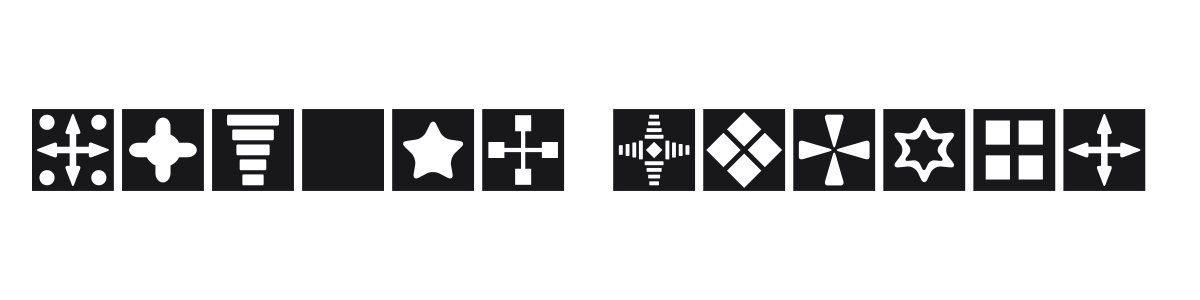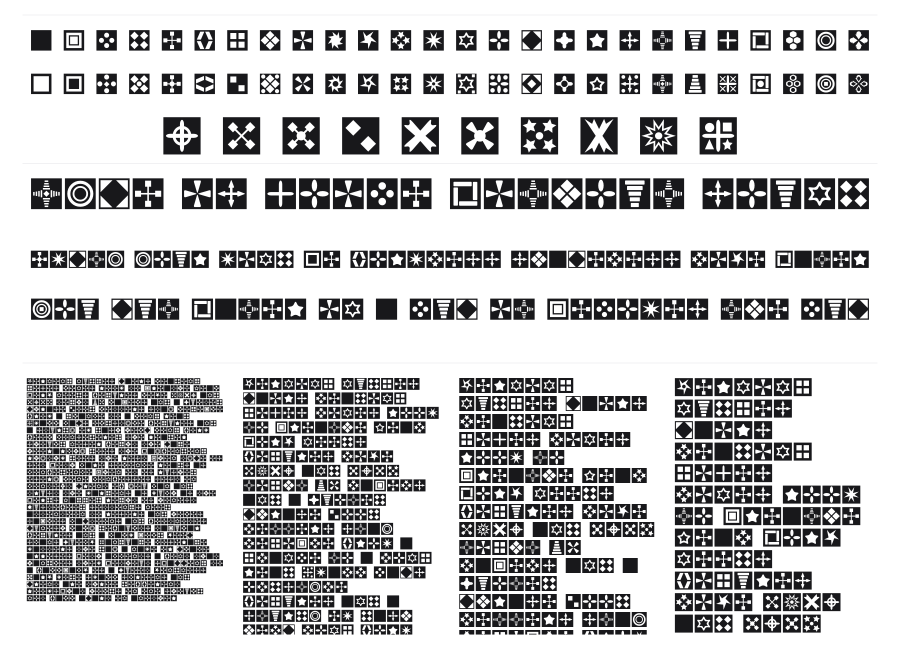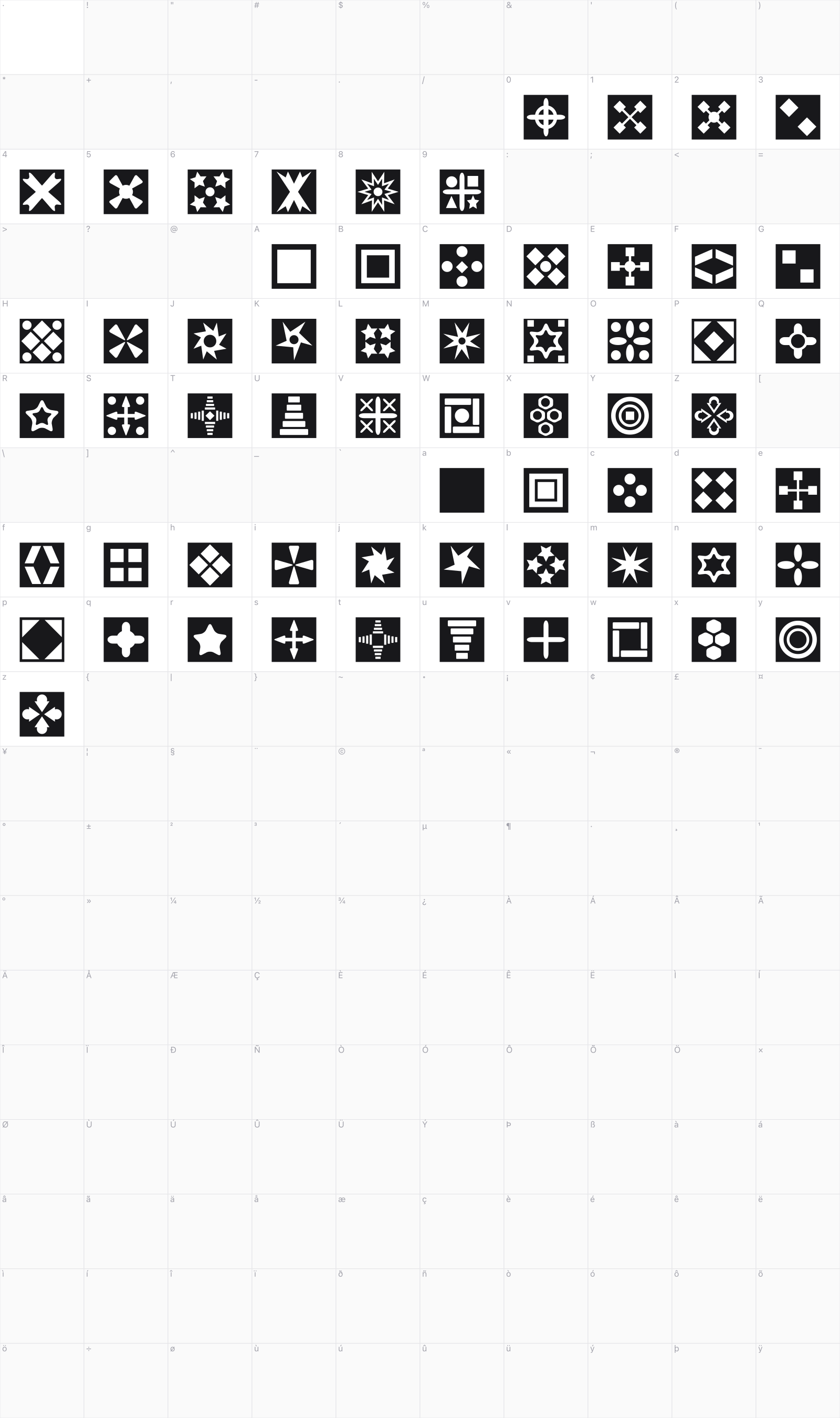
Square Things
Square Things is a geometric dingbat font built around a simple, striking concept: bold white symbols locked inside solid black squares. The set covers stars, crosses, arrows, asterisks, and other geometric forms, all rendered with sharp, high-contrast fills that read clearly at any size. Useful anywhere you need modular decorative elements or ready-made icon tiles.